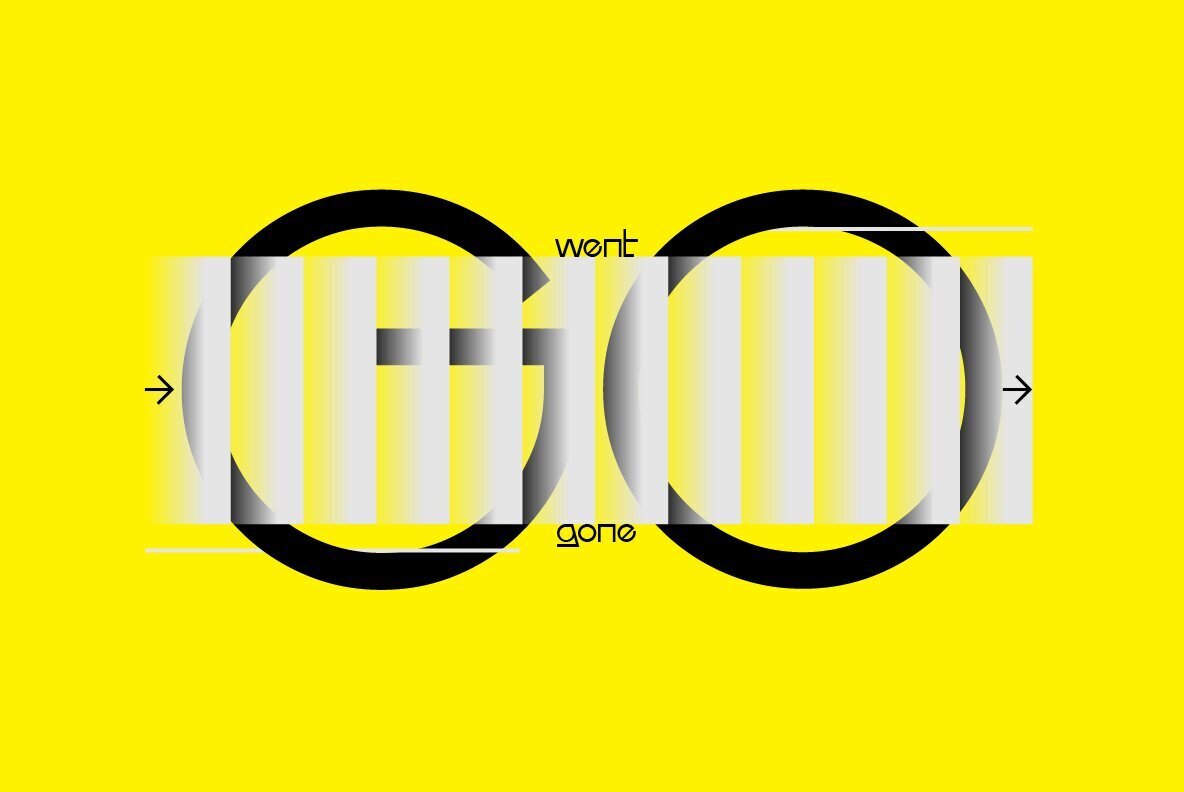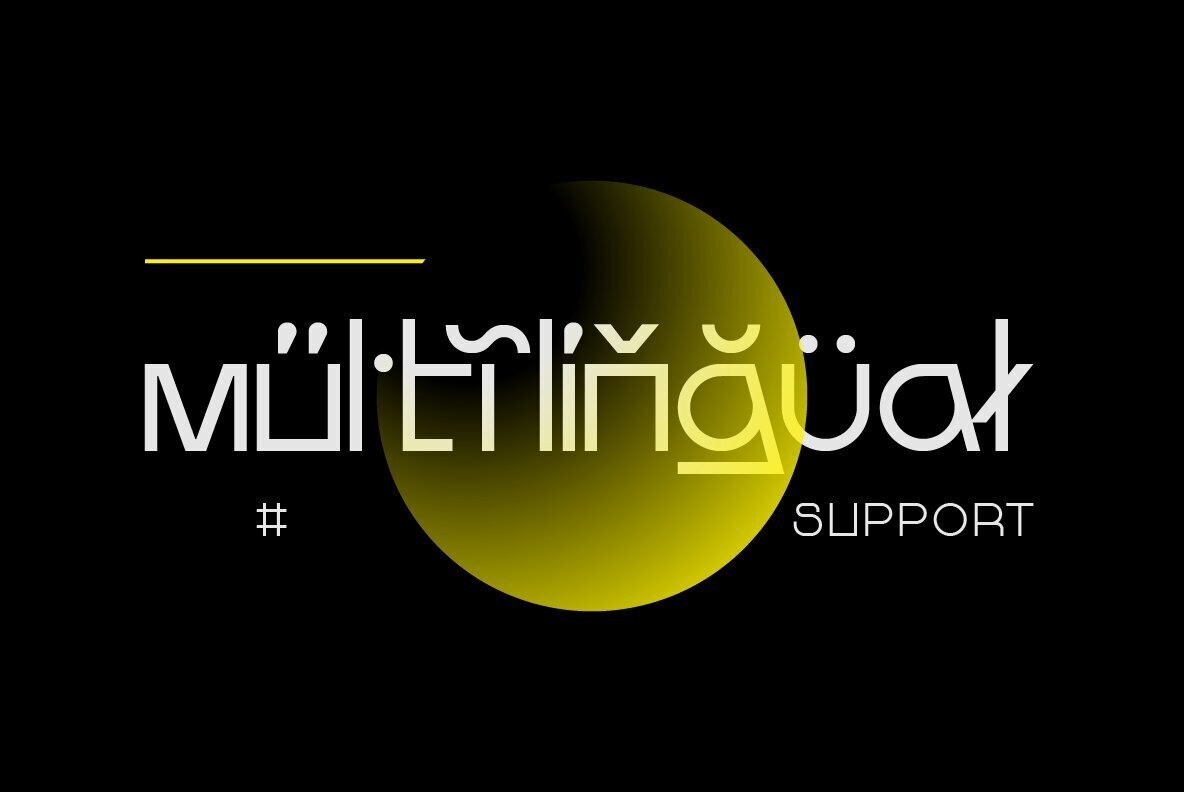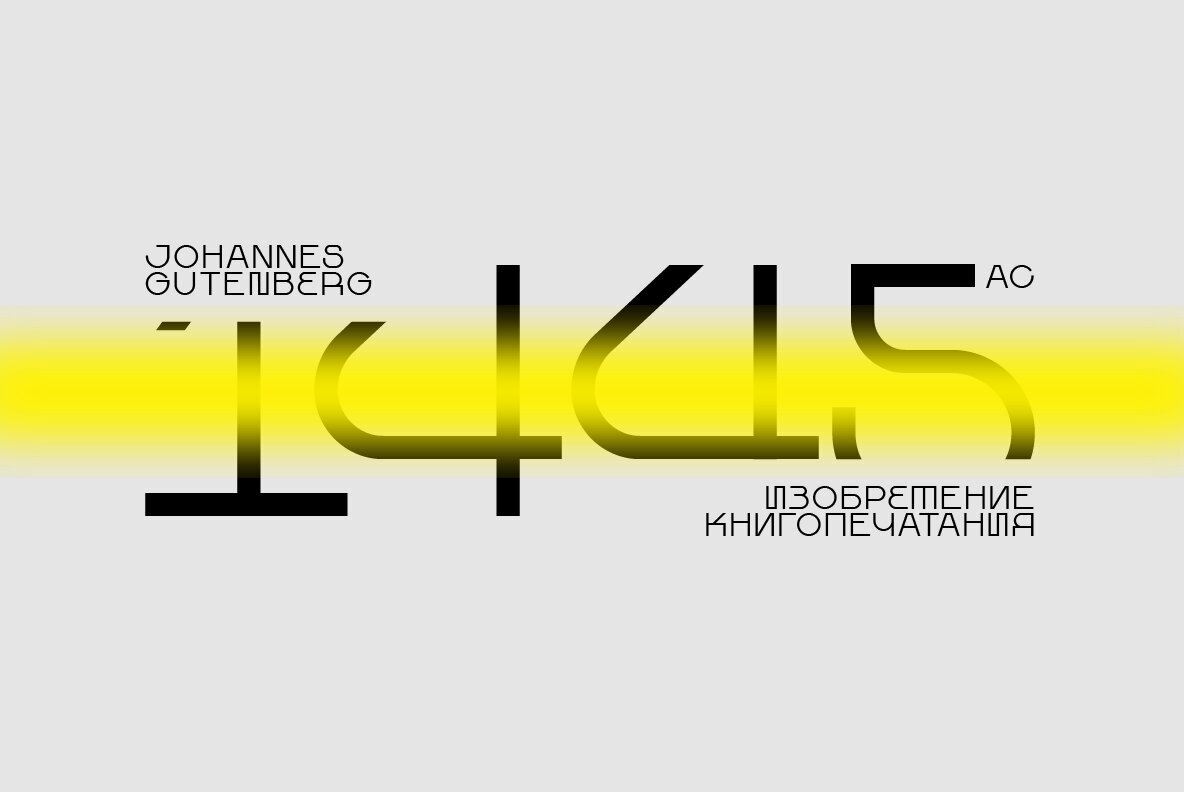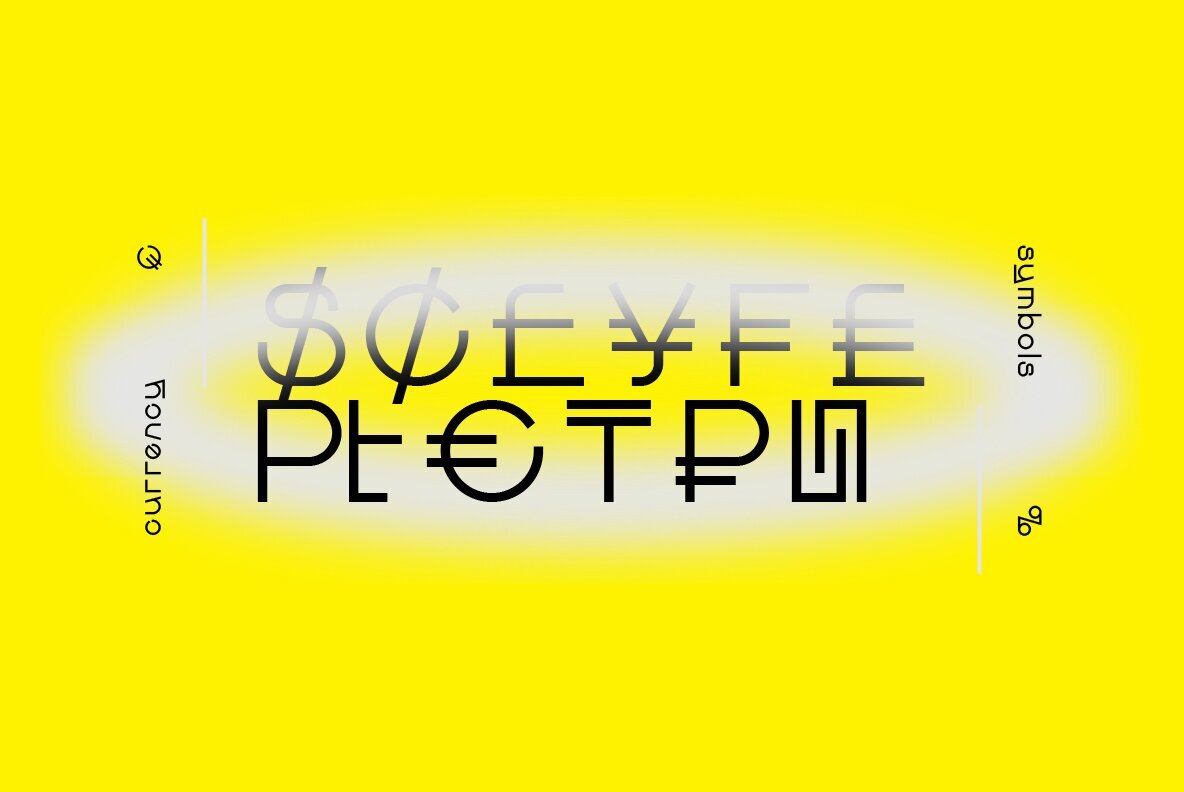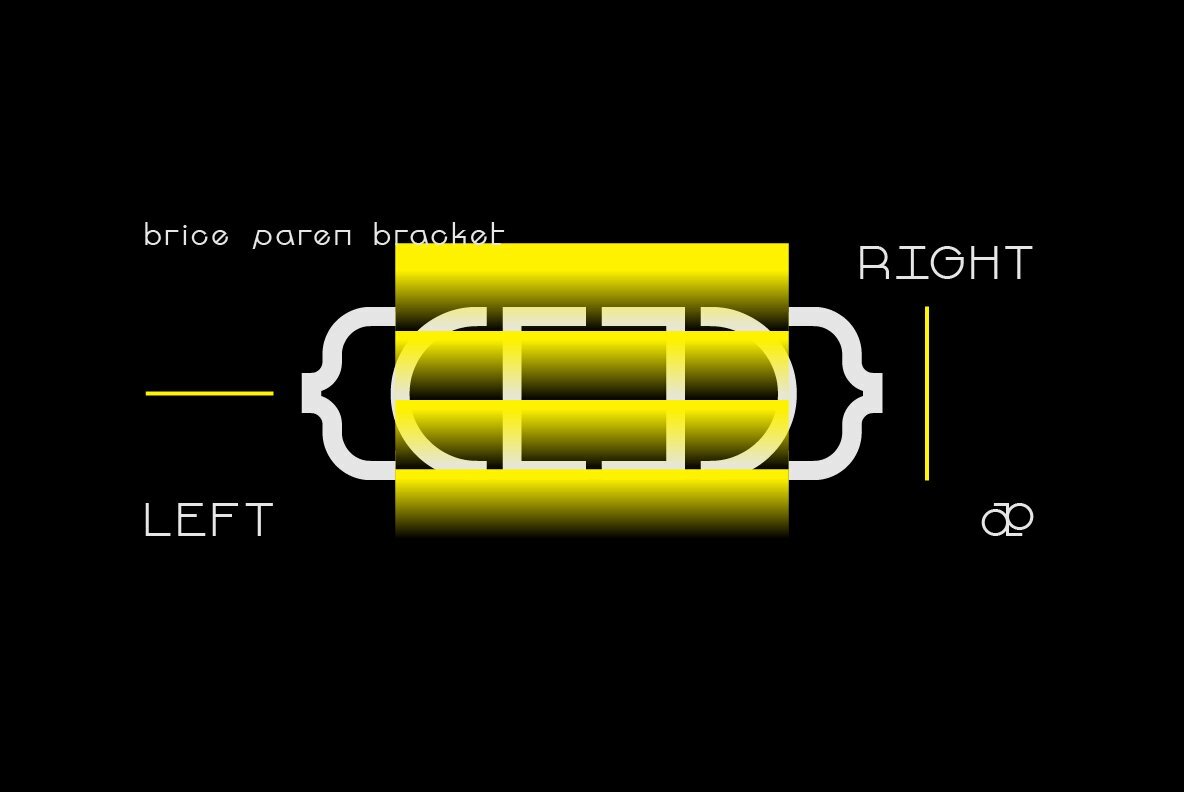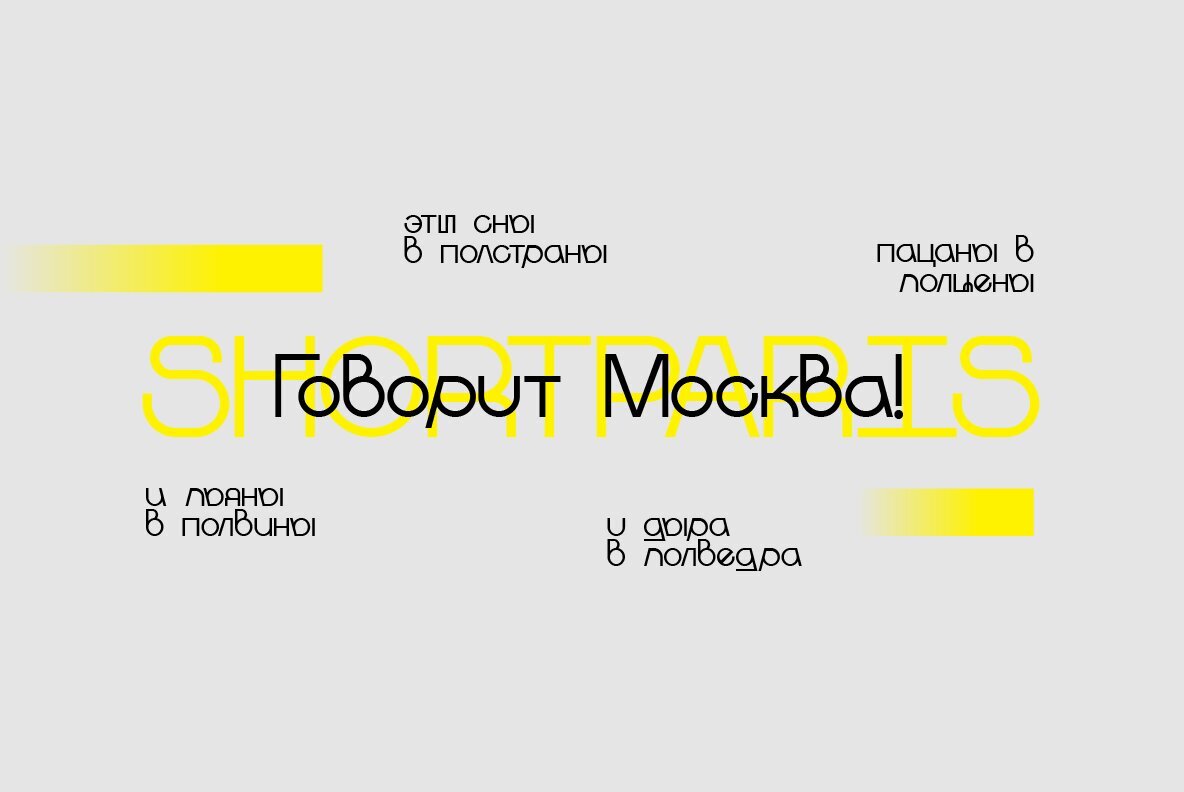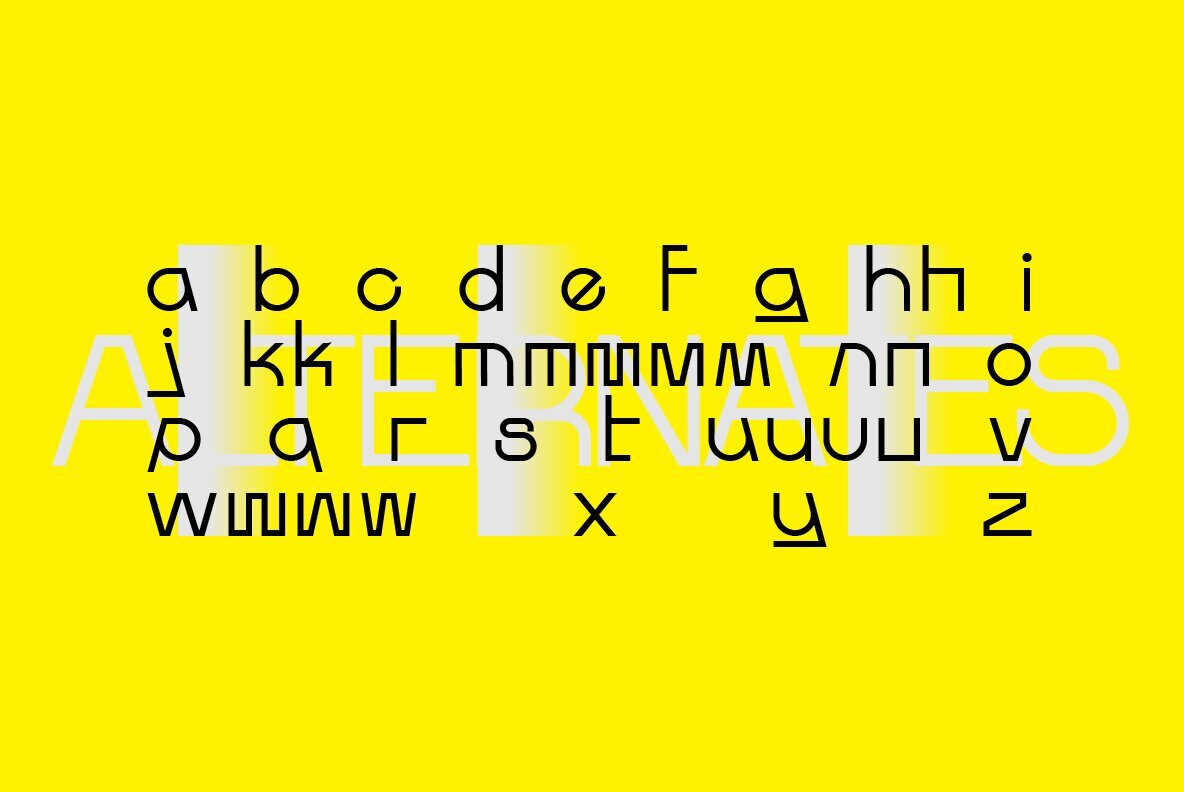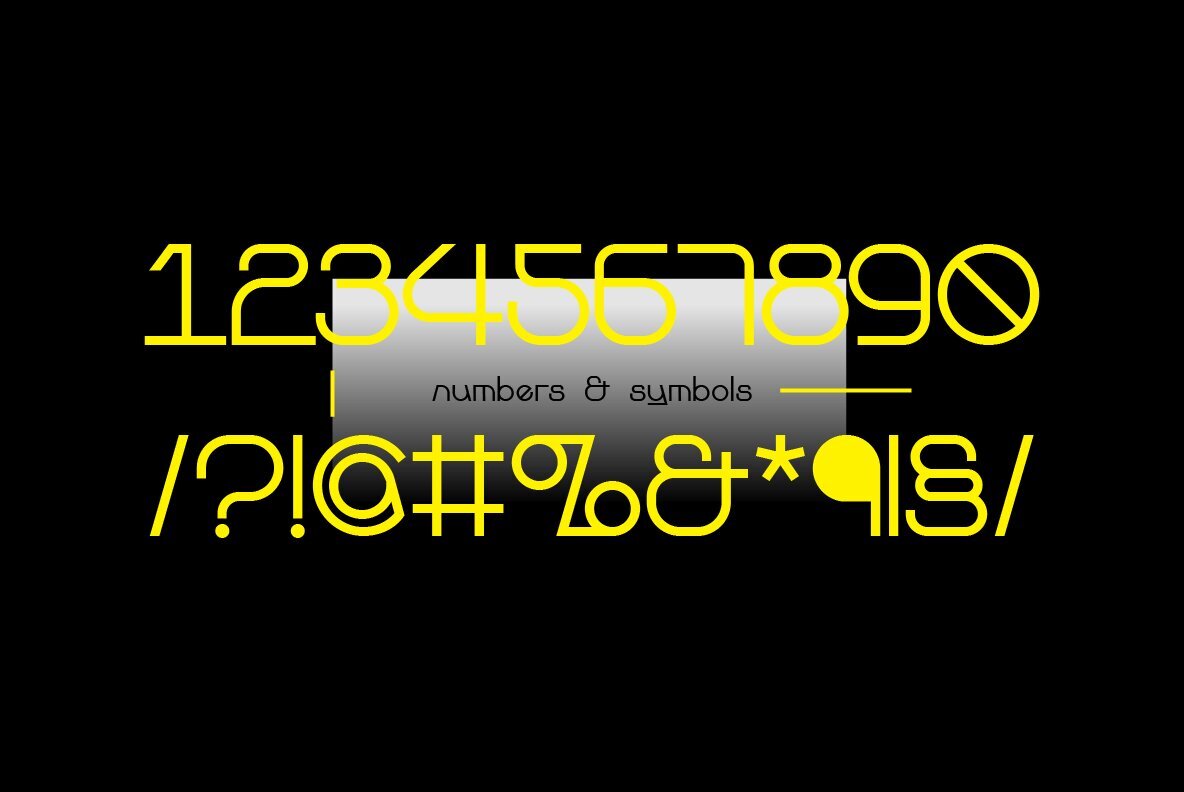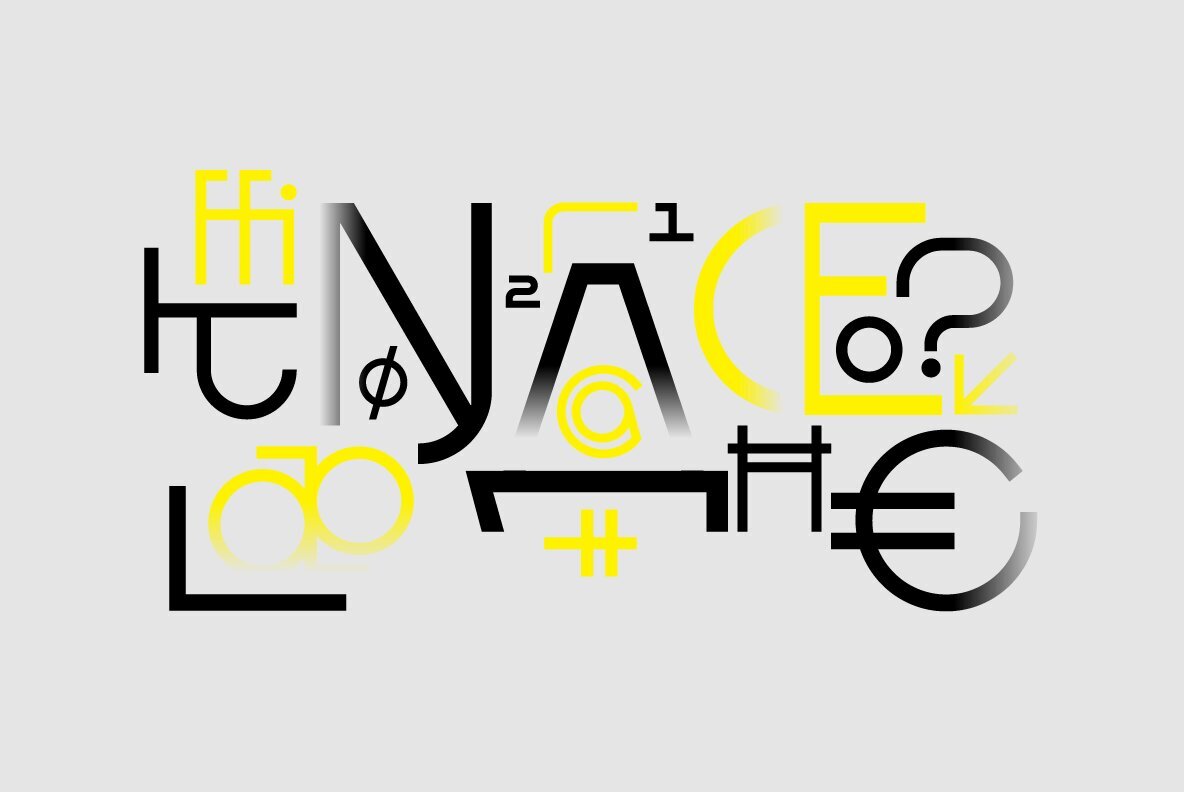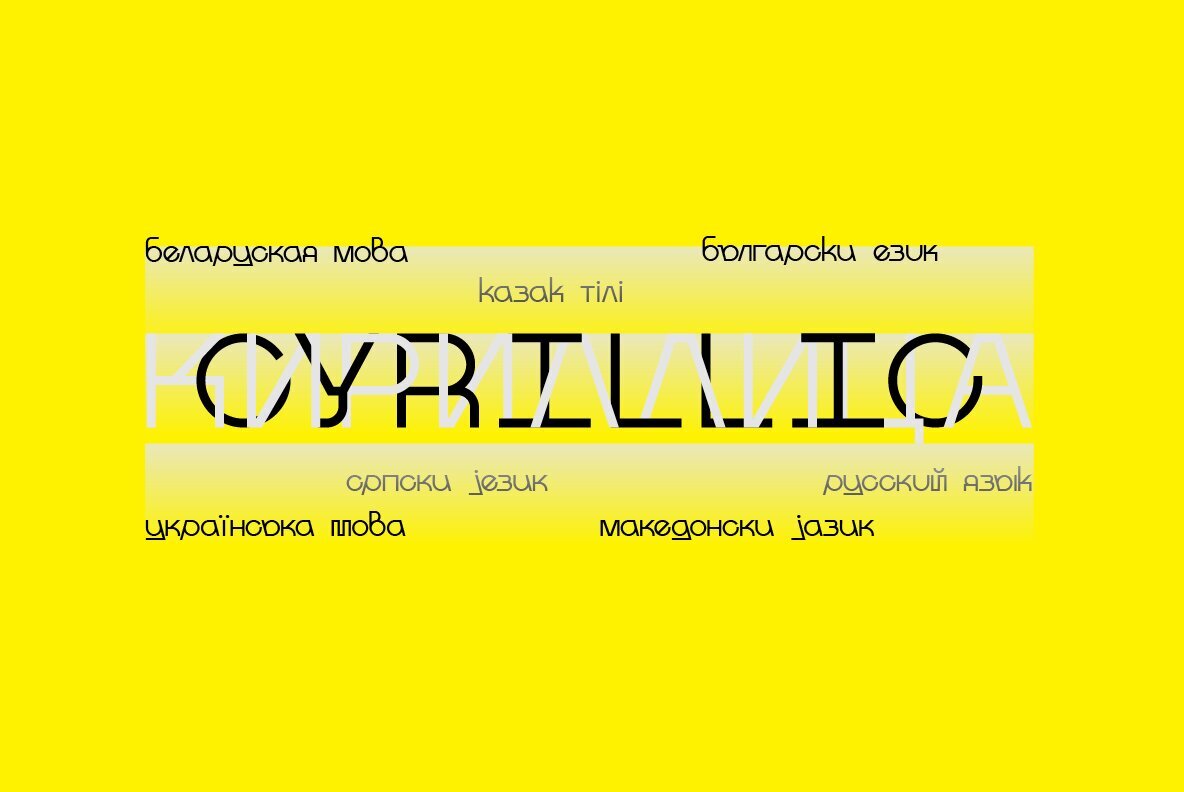
SK Sistematica Font
SK Sistematica Regular
SK Sistematica is a unique modular geometric font. It combines the experimental features of the constructivist period and the strict consistency inherent in the grotesques. SK Sistematica is adapted to modern needs and technologies, which allows it to be easily combined with current design trends. The font is suitable for a wide range of applications: from corporate identification to advertising graphics, from web design to typographic design.